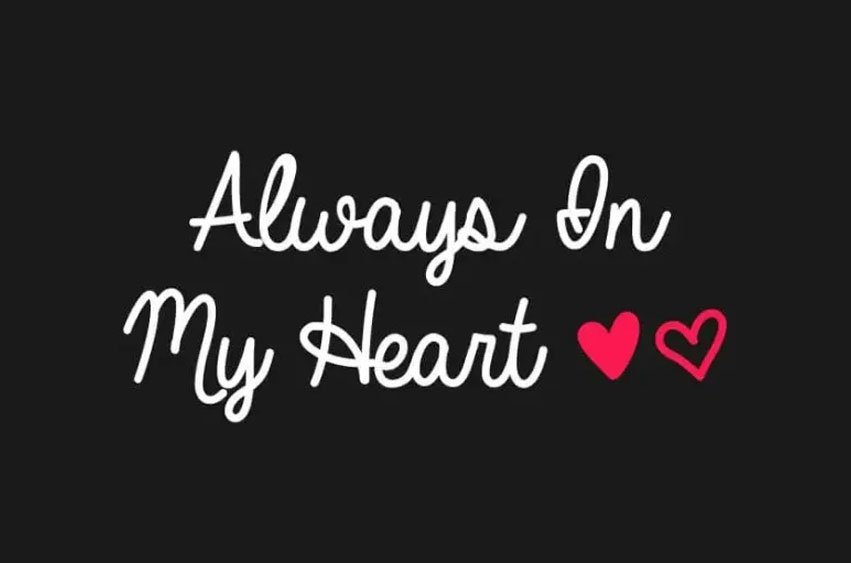
Always In My Heart Font
Always In My Heart Font is a high quality handwritten font that is designed by Vanessa Bays and is available for free download and personal use.
The free version provides all uppercase and lowercase letters and a few special characters too.